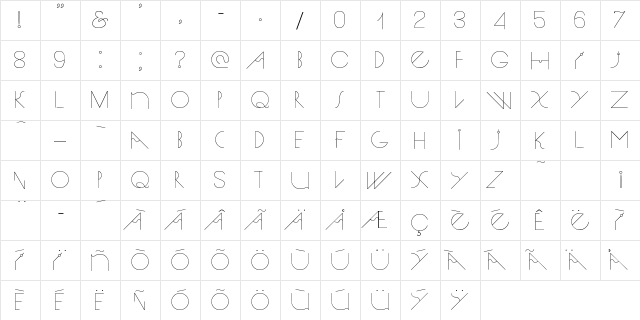
Spike Regular Font Preview
Spike Regular
Spike Regular Font Details
Design Context for Spike Typeface
Spike offers clean, dependable letterforms without strong stylistic allegiance, making it a practical choice for designers who need flexibility.
Pro Tip: Pair Spike with a font of contrasting weight or personality to build a more expressive typographic hierarchy.